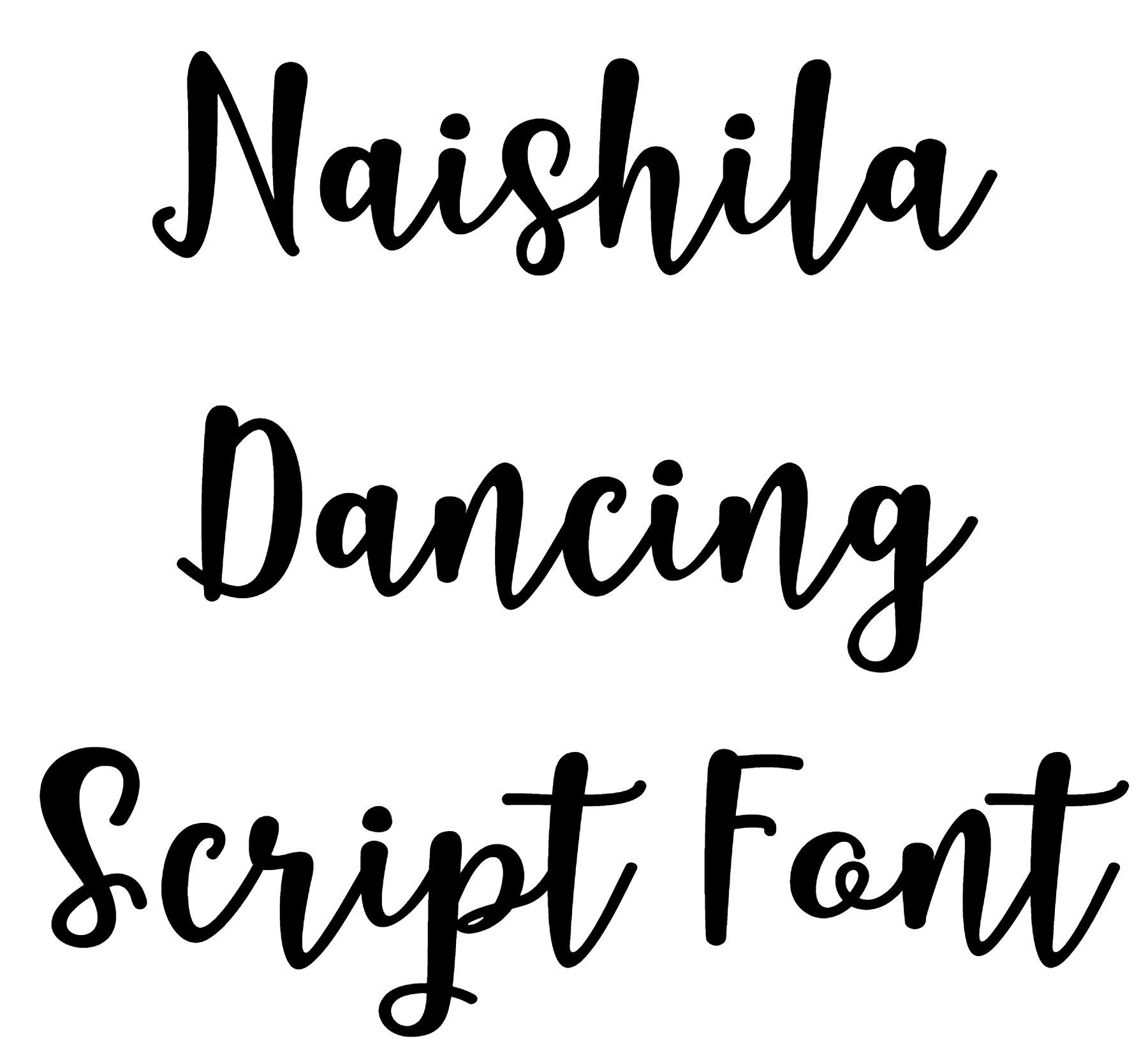
Naishila Dancing Script is a sweet, handwritten calligraphic font family designed by FadeLine Studio. It features a lively, fluid rhythm with a “dancing baseline” that gives text a charming, bounce-like movement. It is semi-bold, stylish, and perfect for modern, minimalist, or watercolor-themed aesthetics.
Naishila Dancing Script
Naishila Dancing Script is a calligraphy font created by Juni Fadil Putra (2017).
- Designer: Juni Fadil Putra
- OpenType features: Ligatures and 12 stylistic sets